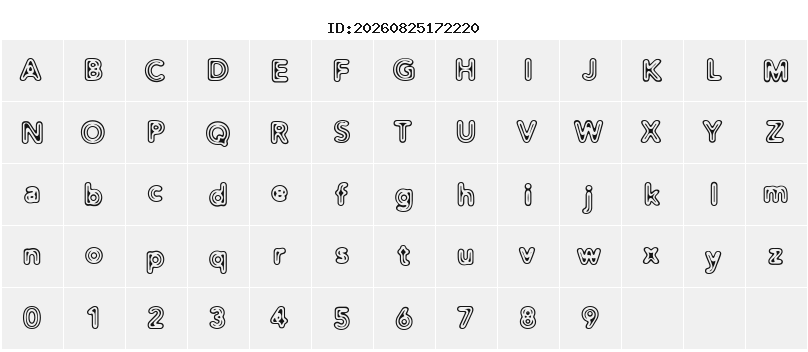
SF Distro Extinct TTF Preview
• Font Name: SF Distro Extinct TTF
• Full Font Name: SFDistroExtinct
• PostScript Name: SFDistroExtinct
• Character Count: 239
• Designer: Peter Ramsey
About SF Distro Extinct TTF.ttf
SF Distro Extinct TTF.ttf is a modern, elegant sans-serif font designed for ultimate readability and visual harmony. Perfect for branding, headlines, web design, and print materials.